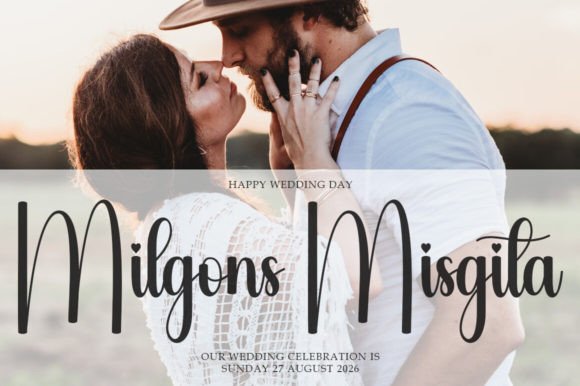
Signature Font
Introducing “Signature,” an enchanting cursive font with a handwritten flourish. Featuring a tender and fluid design, it lends a beautiful balance to a myriad of creative outputs. Infuse your projects with a playful yet romantic ambiance that makes any design stand out. Ideal for distinctive branding and exquisite logos, this font can add an elegant touch to wedding essentials and heartfelt greeting cards. Signature splendidly complements fashion lookbooks and marketing promotions by conveying luxury, elegance, and a dash of relaxed sophistication. Take your design aesthetics from ordinary to extraordinary with the charming subtlety of Signature.